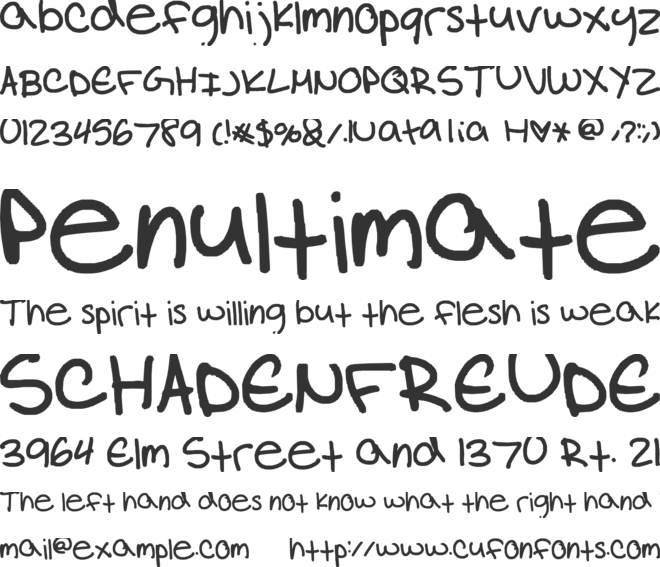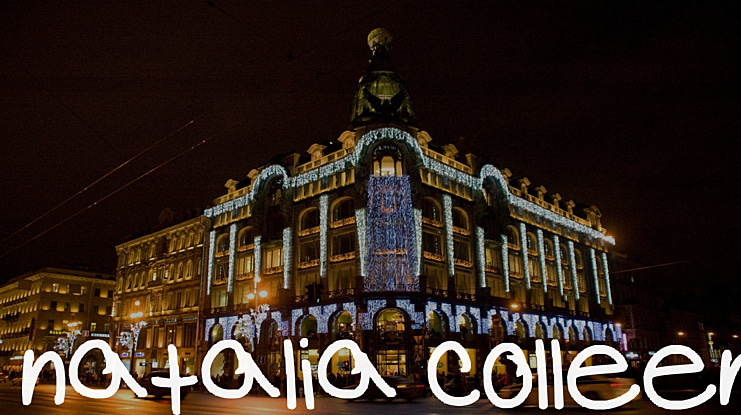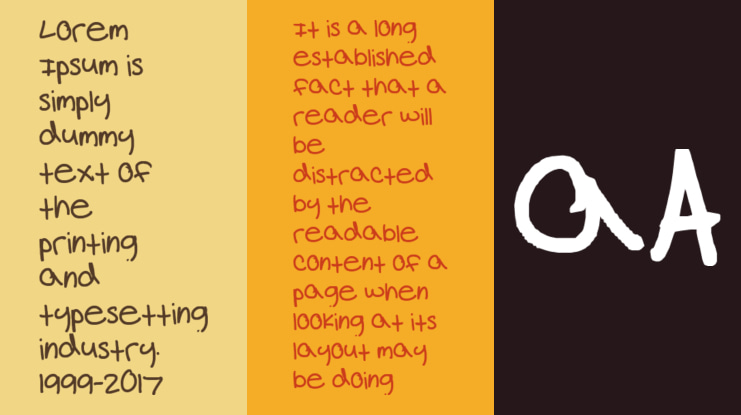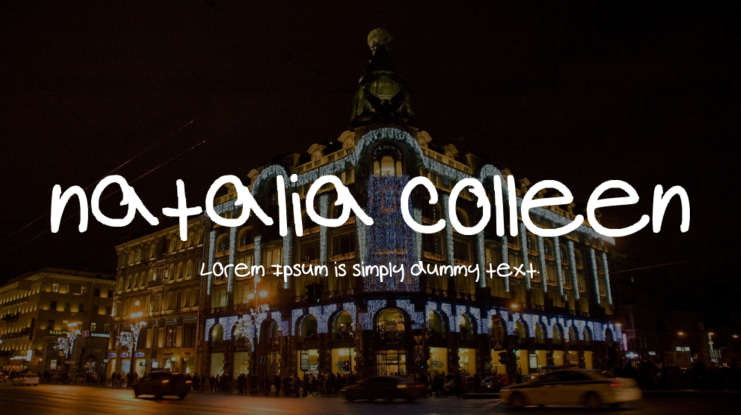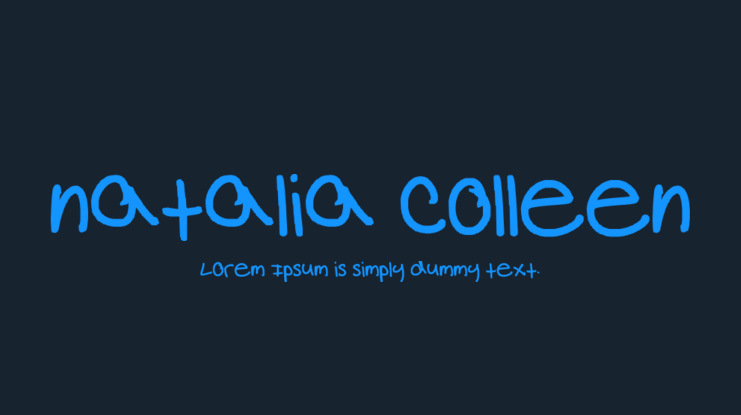
natalia colleen Font
sry this is rly ugly
natalia colleen Regular Ver 1.000 𑁋 Modified at May 27, 2009
This font created with My Font Tool for Tablet PC, developed by Philip Lanier 2004